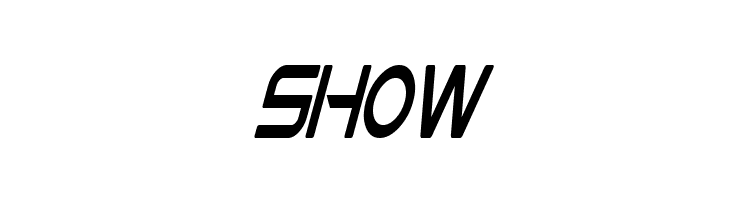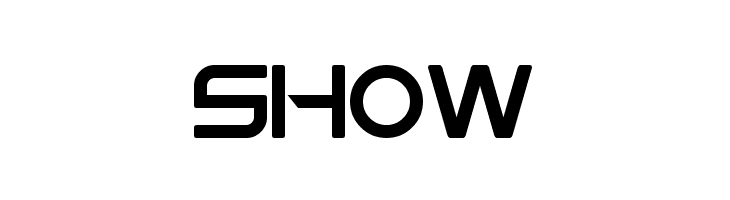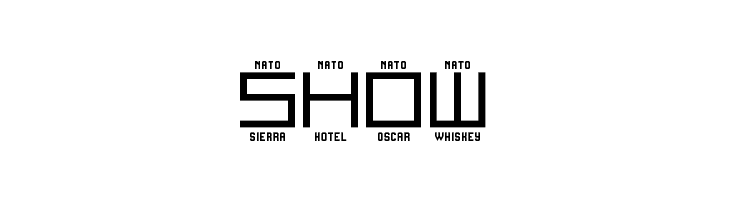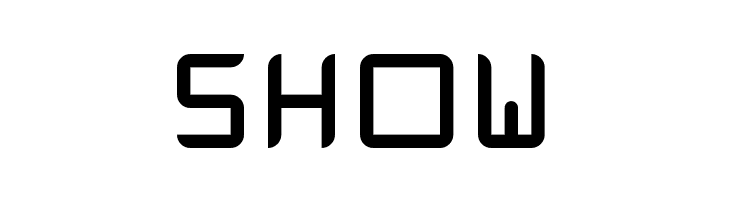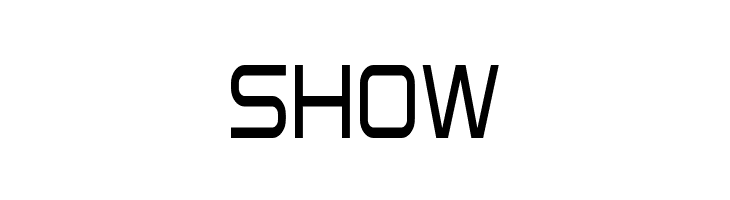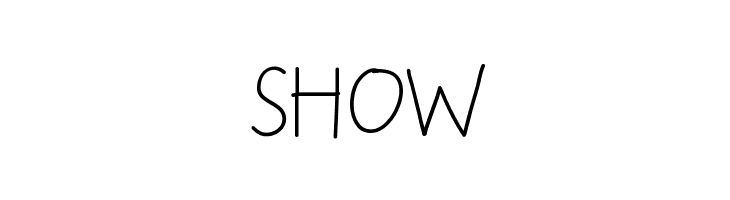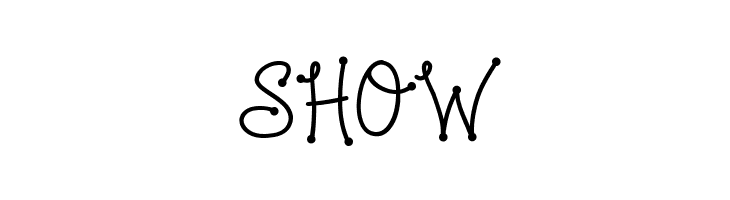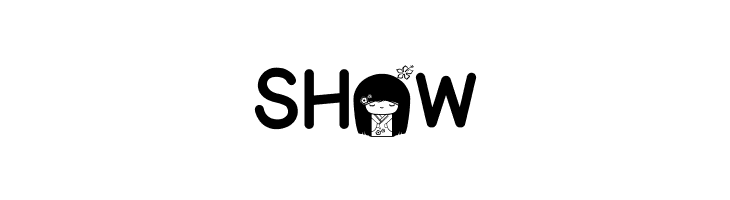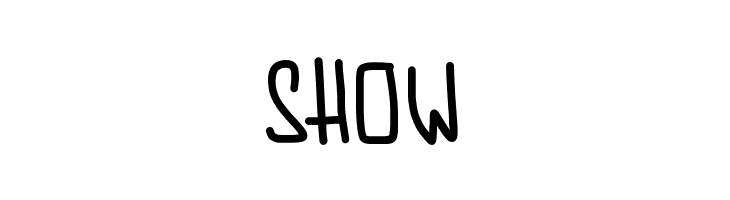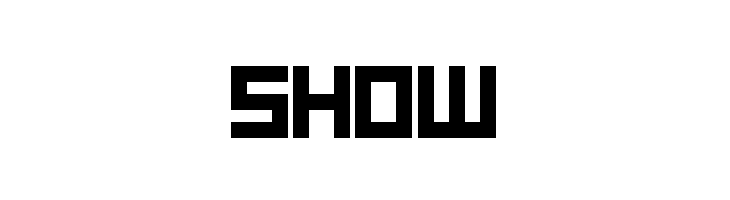
A modern, condensed italic font with uniform stroke thickness and dynamic slant.
A modern, geometric font with rounded edges and uniform thickness.
A bold, geometric font with angular shapes and uniform thickness, ideal for impactful designs.
A playful, whimsical font with loops, curls, and decorative dots.
A bold, playful handwritten font with rounded edges and consistent thickness.
A bold, geometric font with sharp, angular lines and consistent thickness.
A playful, rounded font with a handwritten feel and consistent spacing.
A bold, geometric font with sharp, angular edges and consistent thickness.
A playful, handwritten script font with looping strokes and dynamic line thickness.
An elegant script font with intricate swirls and flourishes, perfect for formal designs.
A playful font with kiss marks on each letter, perfect for romantic and fun designs.
A playful, handwritten font with tall, narrow characters and consistent stroke thickness.
A playful, casual handwritten font with smooth, flowing lines and uniform stroke thickness.
An intricate, ribbon-like decorative font with a whimsical and artistic style.
A clean, structured monospaced font with consistent stroke thickness and clear character definition.
A playful and flowing script font with smooth, rounded curves.
A distressed, ink-splattered font with jagged edges and varying stroke thickness.
A playful, rounded font with smooth, flowing lines and a friendly appearance.
A playful, handwritten-style font with thin, smooth strokes and rounded edges.
A tall, slender, and modern font with a clean and minimalist design.
A playful, thin, and rounded font with a whimsical style.
A playful, hollow, rounded font with a whimsical and airy design.
A playful, handwritten font with tall, narrow letters and consistent stroke thickness.
A playful handwritten font with smooth curves and a casual style.
A playful, handwritten script font with smooth, connected letters.
A playful, handwritten font with rounded, consistent strokes.
A playful, hollow, hand-drawn font with rounded edges and a whimsical style.
A playful, casual handwritten font with rounded, irregular letterforms.